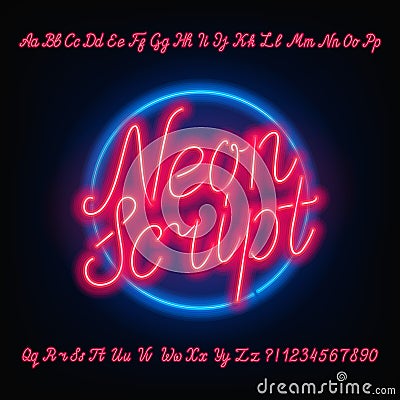
Neon Script Alphabet Font. Red Neon Uppercase And Lowercase Letters And Numbers. Cartoon Vector
Neon script alphabet font. Red neon uppercase and lowercase letters and numbers. Hand drawn vector typeface for your headers or any typography design.